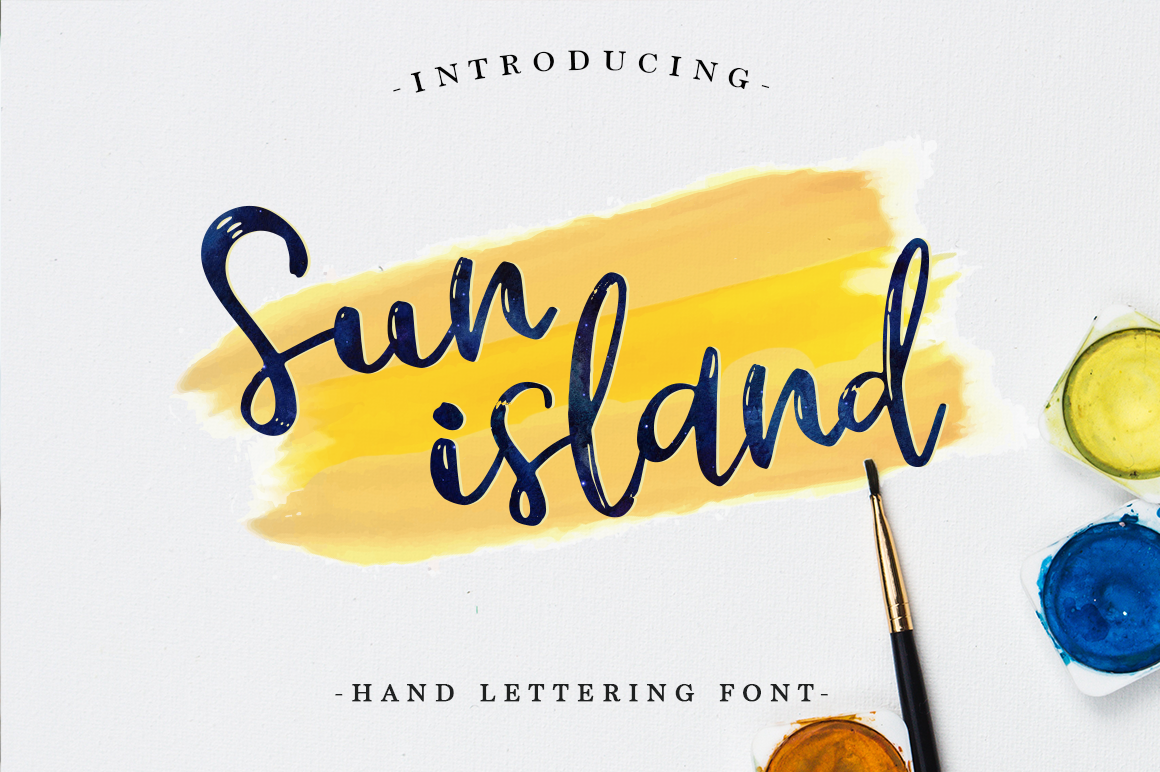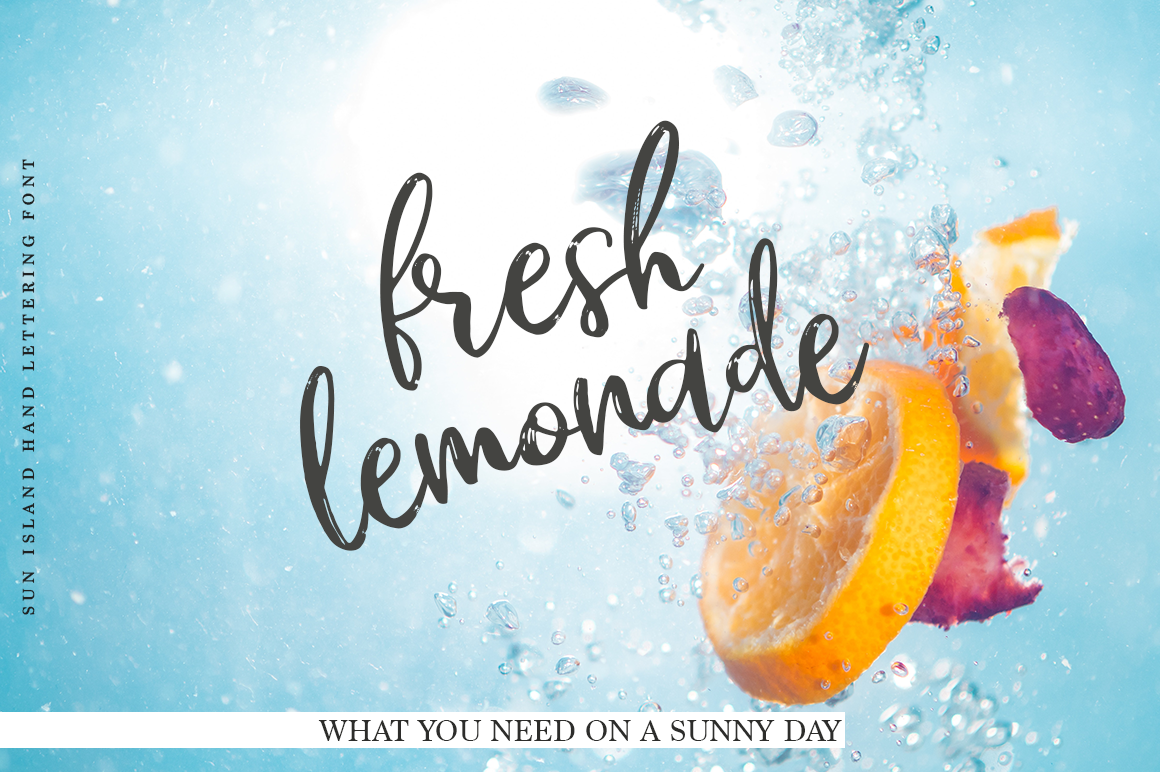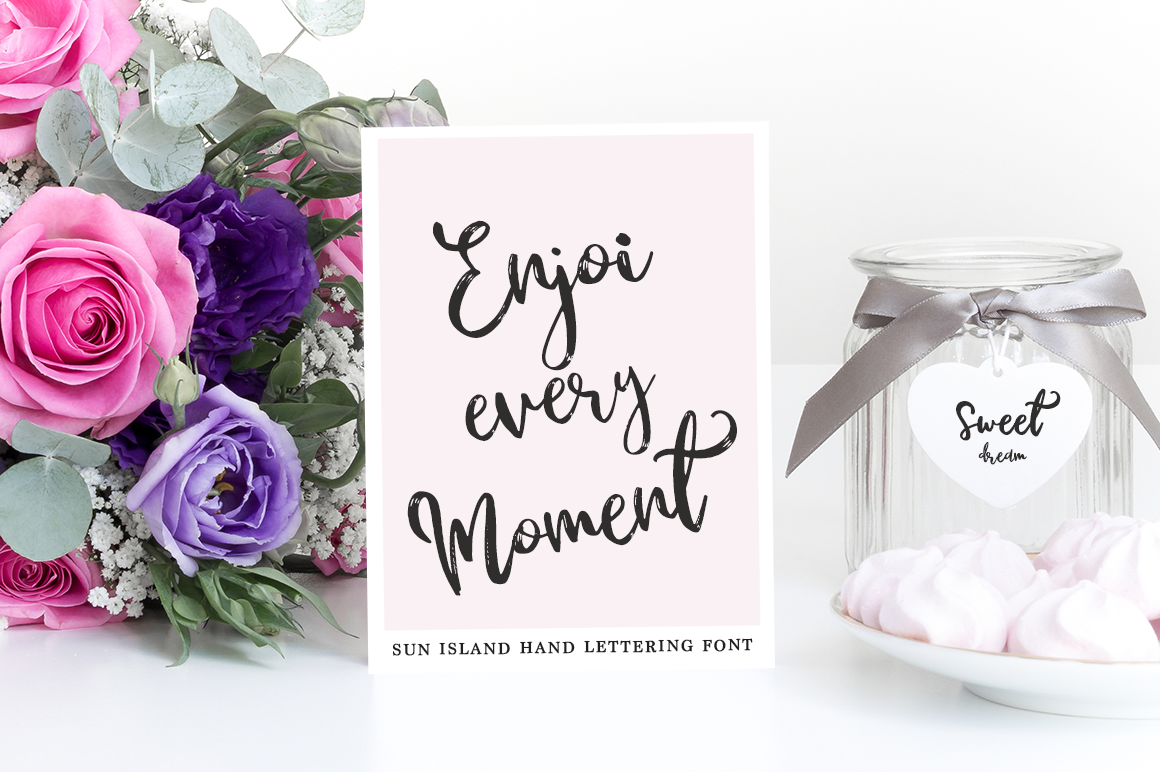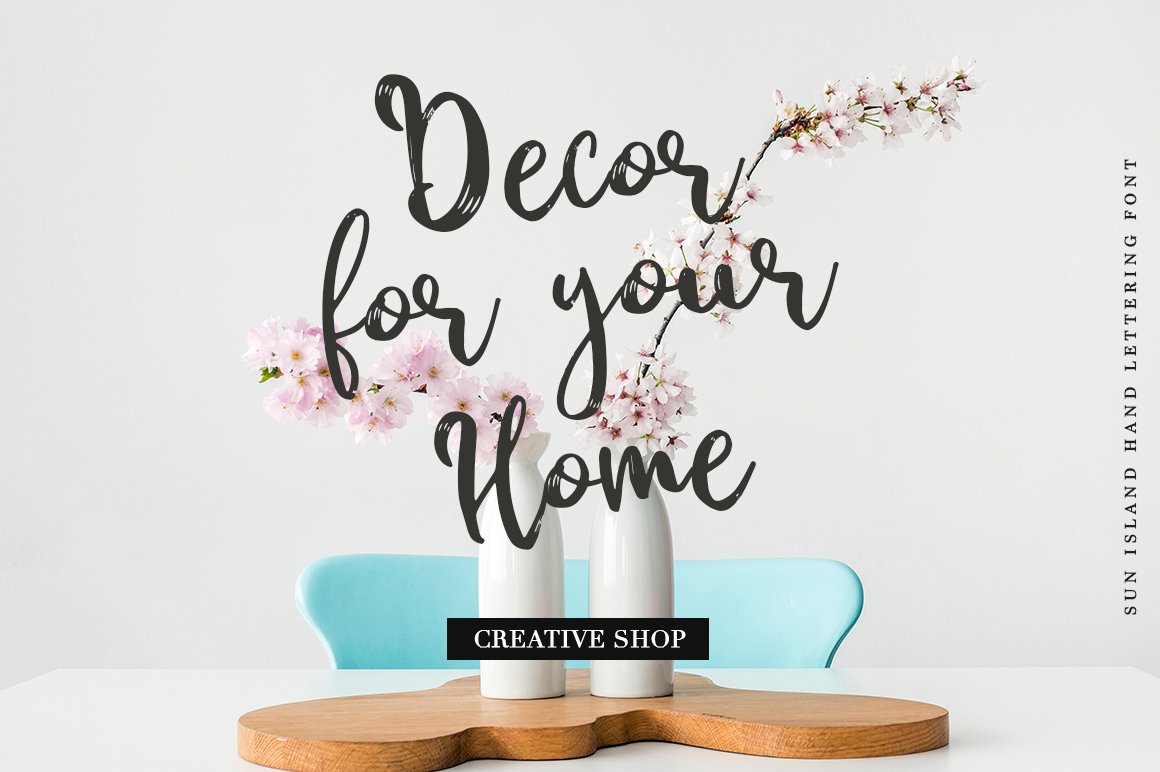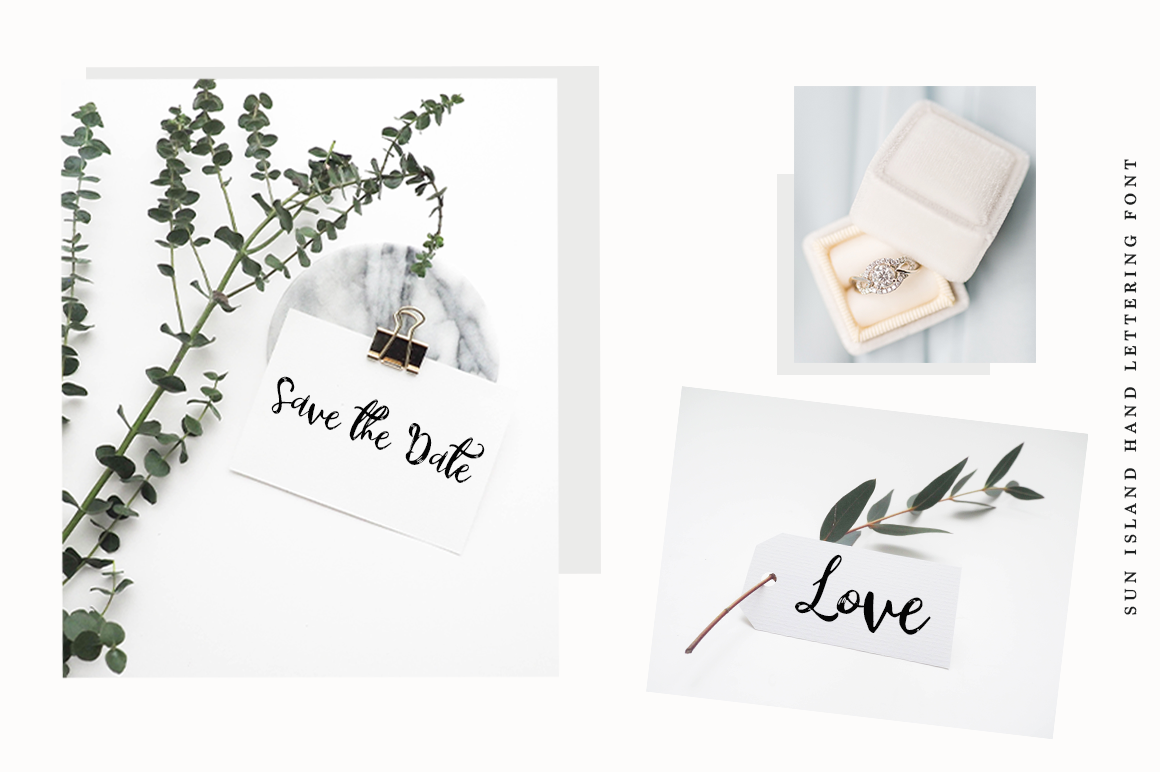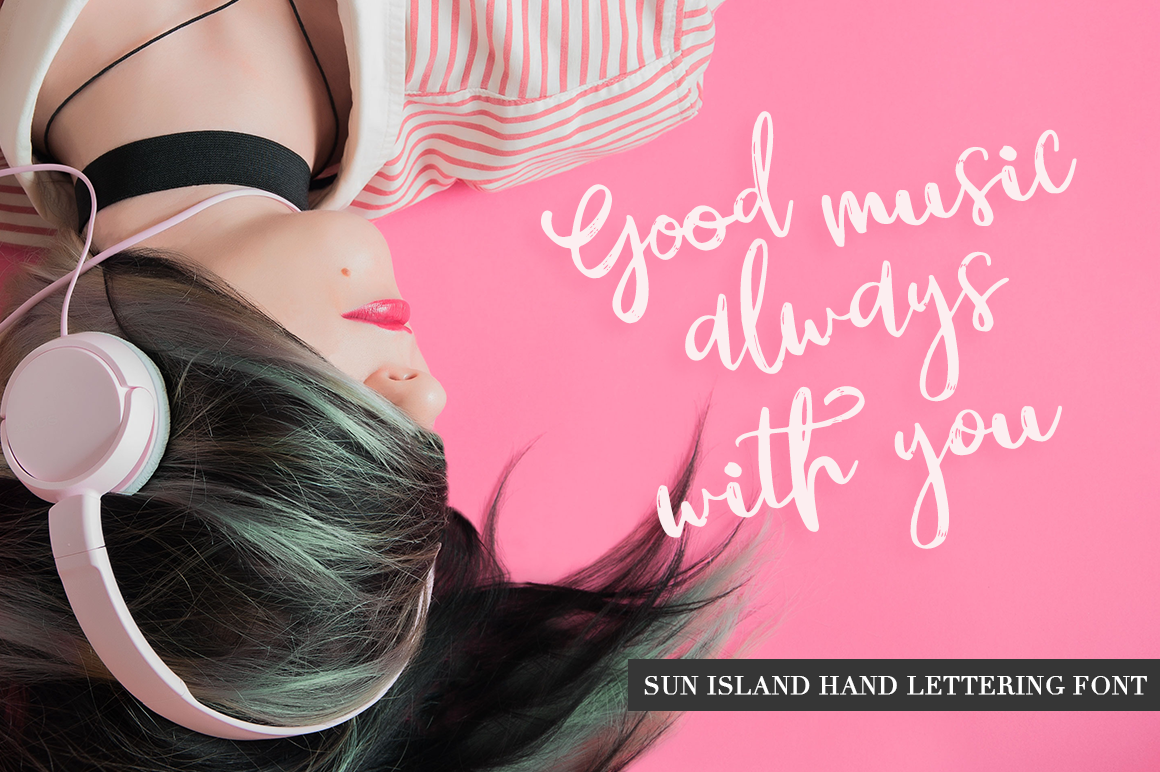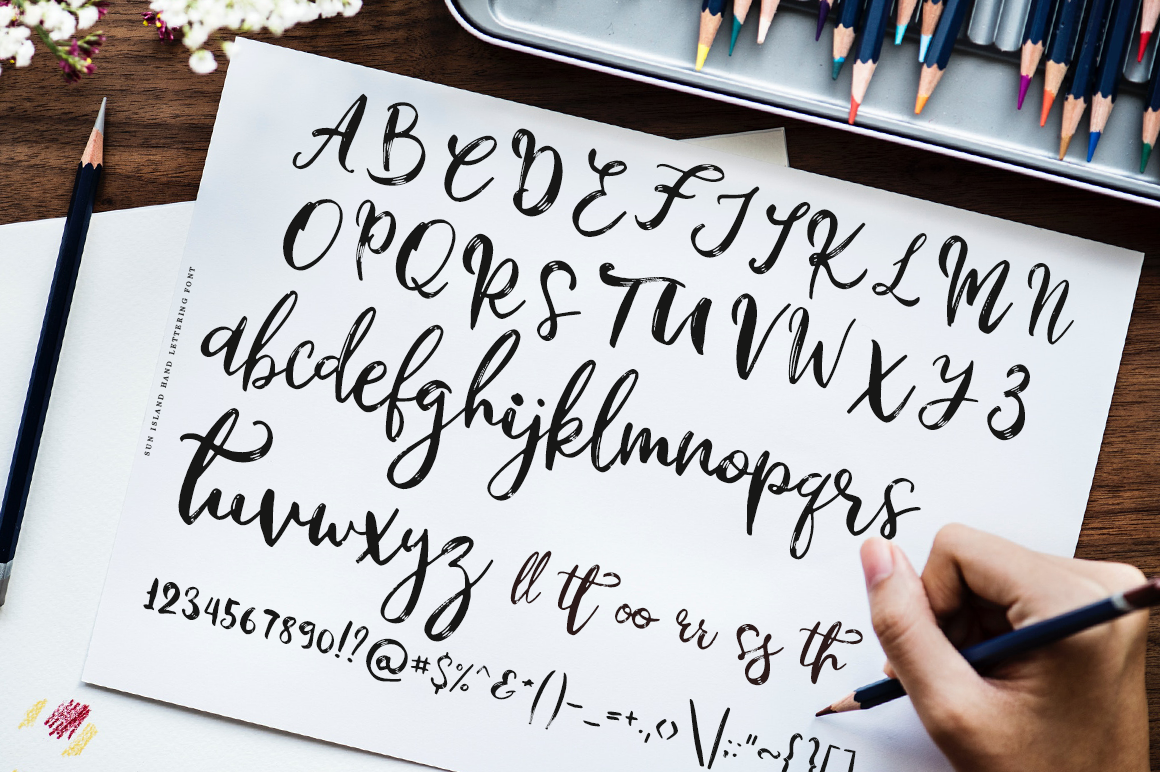
Sun Island Font
About Sun Island Font
Sun island is a gorgeous, handwritten script font; this script is ideal for a wide range of designs that need an airy and fresh feel. This font looks great in vintage and modern designs.